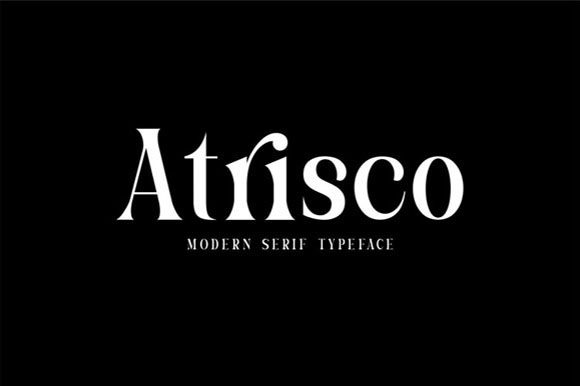
The Atrisco Font: A Modern Take on Classic Serif Elegance
I’ll never forget the struggle I faced while working on a branding project for a luxury client. I had to find the perfect font that exuded sophistication, elegance, and a touch of modernity. After hours of scouring through font libraries, I stumbled upon Atrisco – a stunning contemporary serif font that instantly caught my attention. In this article, I’ll share my experience with Atrisco, its features, and how to make the most of it in your designs.
An Honest Review of Atrisco
Atrisco has quickly become one of my go-to fonts for branding, marketing, and editorial projects. Here’s what I love about it:
- ✨ Elegant serif design with a modern twist
- ✅ Extensive character set, including OpenType features and glyphs
- ✅ Works beautifully in both digital and print formats
While Atrisco is an excellent font, it’s not without its quirks:
- 🤔 Some users may find the font’s x-height a bit too high, which can affect its overall aesthetic in certain contexts
- ⚠️ Limited availability of stylistic alternates, which might limit creative flexibility
The Story Behind Atrisco
Atrisco was designed with the goal of creating a modern, elegant serif font that pays homage to classic typography. The designer aimed to craft a font that would be both versatile and sophisticated, suitable for a wide range of applications.
| Font Name | Atrisco Font |
| Author | Hanzel Studio |
| What type of projects is Atrisco best suited for? | Atrisco is ideal for branding, marketing, and editorial projects, such as luxury brand identities, high-end product packaging, and elegant publications. |
| Does Atrisco support OpenType features? | Yes, Atrisco includes OpenType features, such as ligatures and stylistic alternates, which can enhance the font’s versatility and visual appeal. |